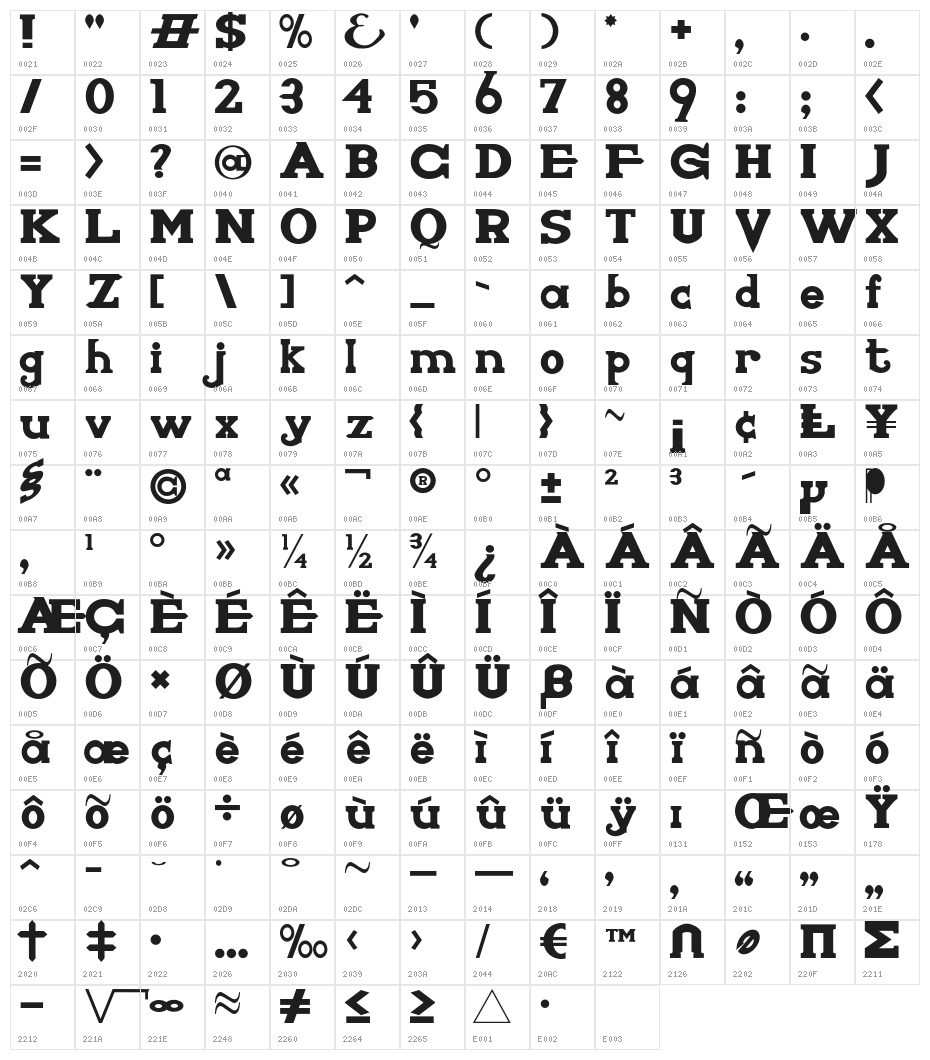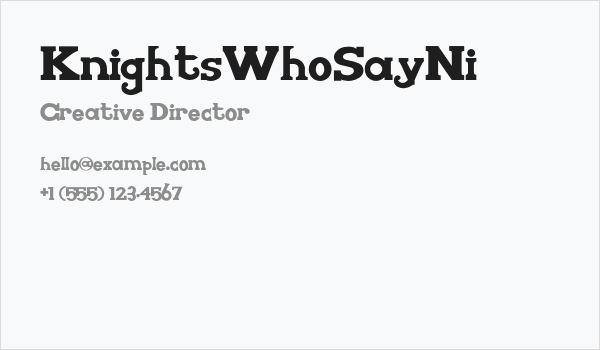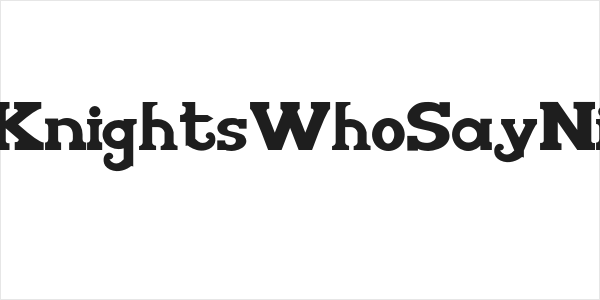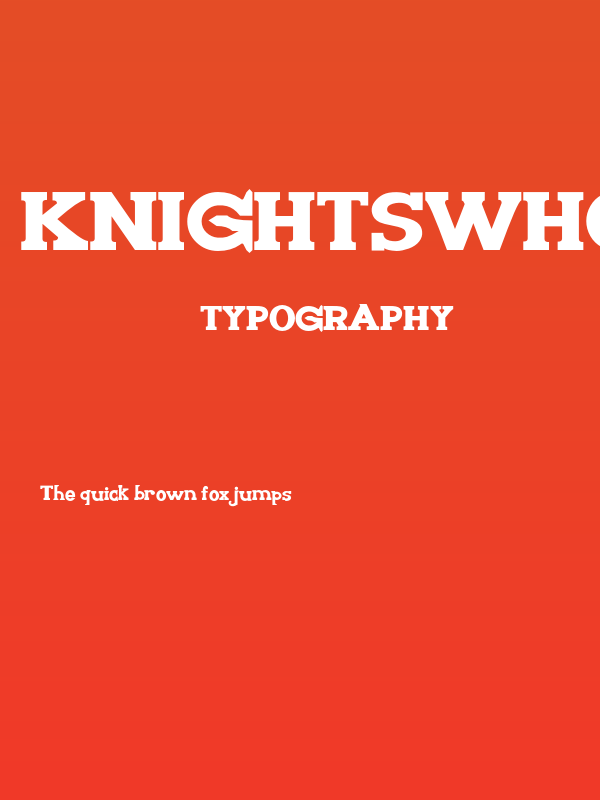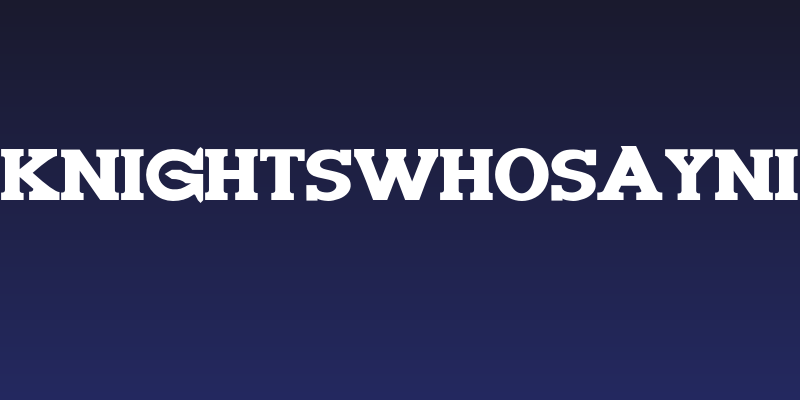
KnightsWhoSayNi Font
KnightsWhoSayNi Description
This font features a bold and dramatic style with strong, thick strokes and pronounced serifs. The characters exhibit a unique blend of traditional serif elements with a modern twist, making them stand out with their bold presence. The uppercase letters are particularly striking, with sharp angles and a robust structure, while the lowercase letters maintain a consistent weight and style. The numerals are equally bold, ensuring they are easily readable and visually impactful. Special characters are designed with the same boldness, adding to the font's overall cohesive appearance.
| Proposed Projects | Ideal for headlines, posters, branding, and any project requiring a strong visual impact. |